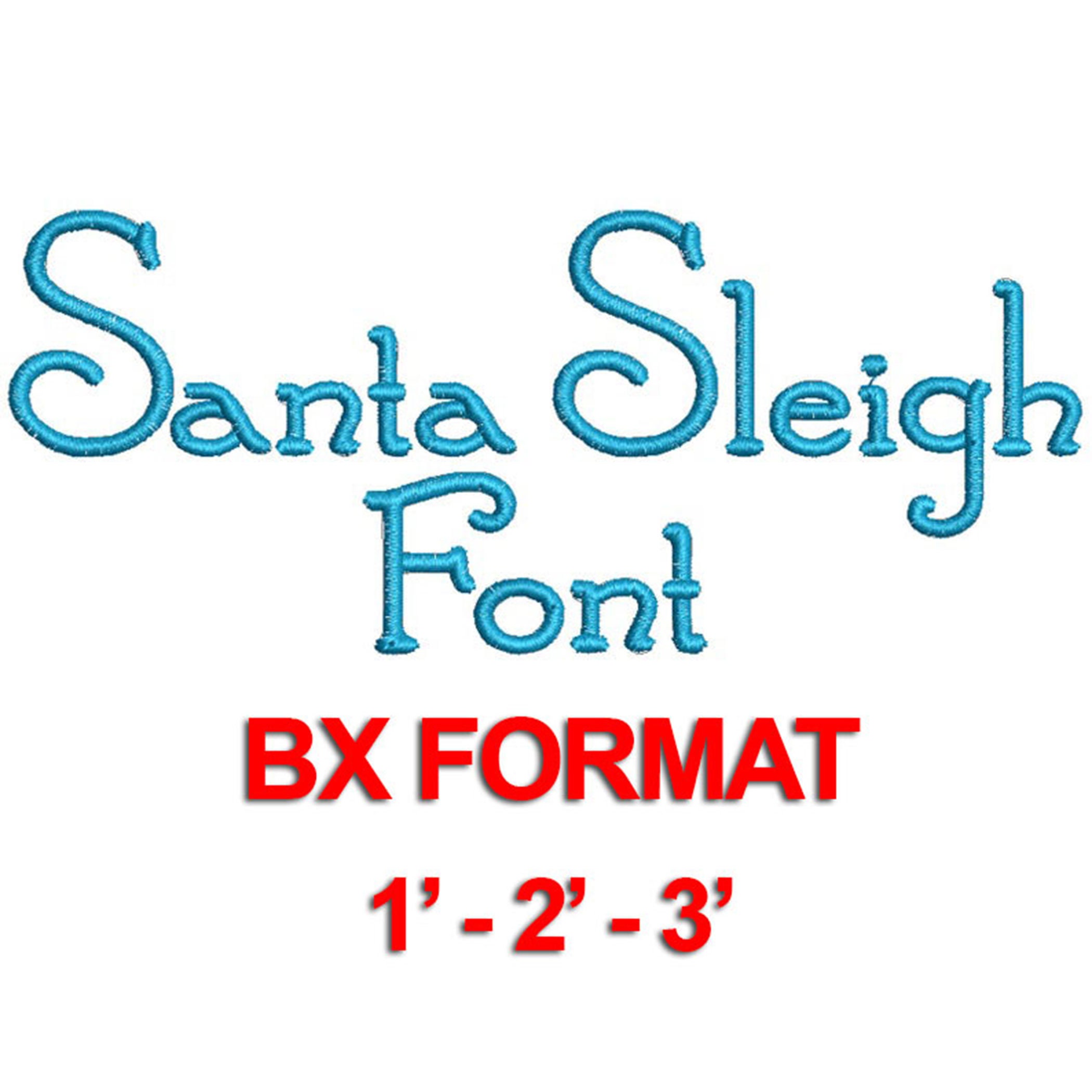
Santa's Sleigh Font
Santa's Sleigh Font - Santa's sleigh à € by hypotypo. 1,809,240 downloads (15 yesterday) 60 comments 3 font files. Web santa sleigh font specimen. Santa sleigh is a flowing handwritten font, described by an elegant touch, perfect for your favorite.
Santa's sleigh à € by hypotypo. 1,809,240 downloads (15 yesterday) 60 comments 3 font files. Web santa sleigh font specimen. Santa sleigh is a flowing handwritten font, described by an elegant touch, perfect for your favorite.
Web santa sleigh font specimen. Santa's sleigh à € by hypotypo. 1,809,240 downloads (15 yesterday) 60 comments 3 font files. Santa sleigh is a flowing handwritten font, described by an elegant touch, perfect for your favorite.
1,809,240 downloads (15 yesterday) 60 comments 3 font files. Web santa sleigh font specimen. Santa sleigh is a flowing handwritten font, described by an elegant touch, perfect for your favorite. Santa's sleigh à € by hypotypo.
Web santa sleigh font specimen. Santa sleigh is a flowing handwritten font, described by an elegant touch, perfect for your favorite. 1,809,240 downloads (15 yesterday) 60 comments 3 font files. Santa's sleigh à € by hypotypo.
Web santa sleigh font specimen. 1,809,240 downloads (15 yesterday) 60 comments 3 font files. Santa sleigh is a flowing handwritten font, described by an elegant touch, perfect for your favorite. Santa's sleigh à € by hypotypo.
Santa's sleigh à € by hypotypo. 1,809,240 downloads (15 yesterday) 60 comments 3 font files. Santa sleigh is a flowing handwritten font, described by an elegant touch, perfect for your favorite. Web santa sleigh font specimen.
Free font "Santa's Sleigh" by HypoTypo
Web santa sleigh font specimen. 1,809,240 downloads (15 yesterday) 60 comments 3 font files. Santa's sleigh à € by hypotypo. Santa sleigh is a flowing handwritten font, described by an elegant touch, perfect for your favorite.
Santa's Sleigh Font
1,809,240 downloads (15 yesterday) 60 comments 3 font files. Santa sleigh is a flowing handwritten font, described by an elegant touch, perfect for your favorite. Web santa sleigh font specimen. Santa's sleigh à € by hypotypo.
Santa sleigh is a flowing handwritten font, described by an elegant touch, perfect for your favorite. Web santa sleigh font specimen. Santa's sleigh à € by hypotypo. 1,809,240 downloads (15 yesterday) 60 comments 3 font files.
1,809,240 downloads (15 yesterday) 60 comments 3 font files. Web santa sleigh font specimen. Santa's sleigh à € by hypotypo. Santa sleigh is a flowing handwritten font, described by an elegant touch, perfect for your favorite.
Free font "Santa's Sleigh" by HypoTypo
Web santa sleigh font specimen. Santa's sleigh à € by hypotypo. 1,809,240 downloads (15 yesterday) 60 comments 3 font files. Santa sleigh is a flowing handwritten font, described by an elegant touch, perfect for your favorite.
Santa sleigh is a flowing handwritten font, described by an elegant touch, perfect for your favorite. Santa's sleigh à € by hypotypo. Web santa sleigh font specimen.